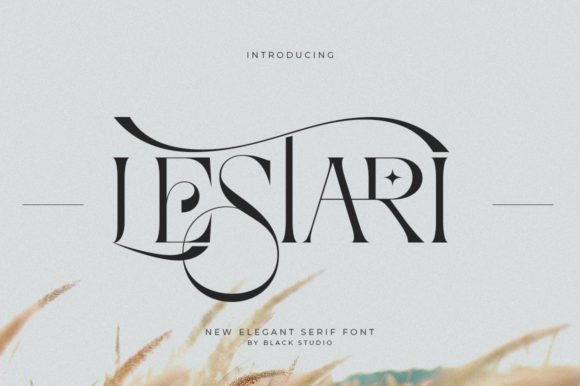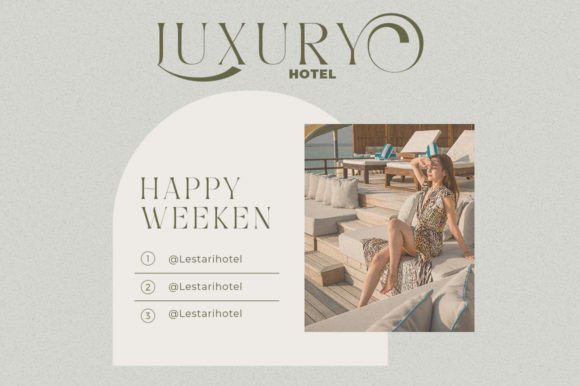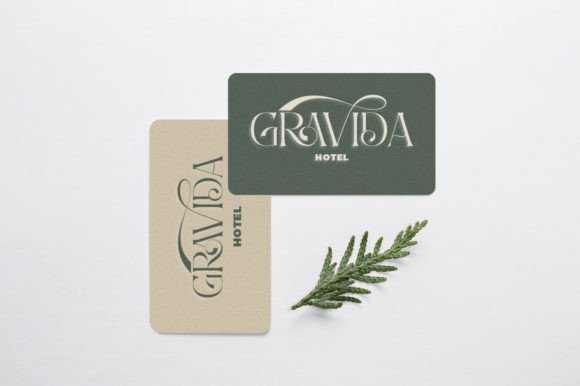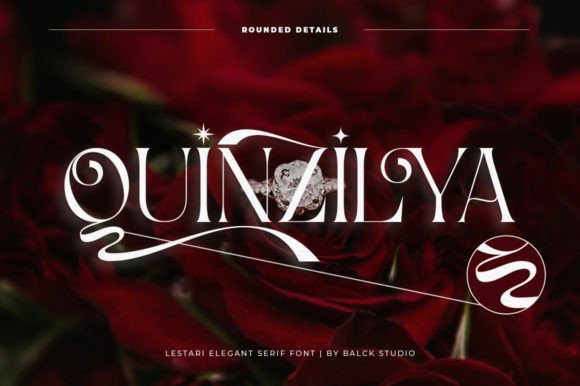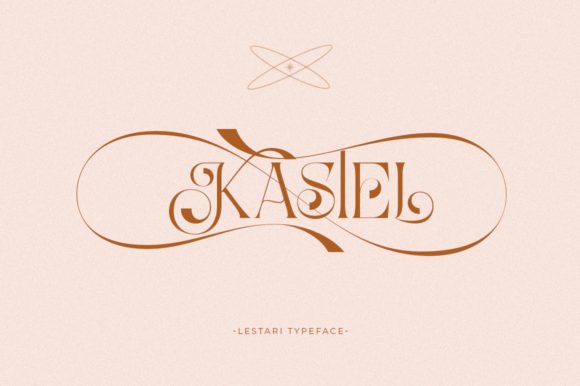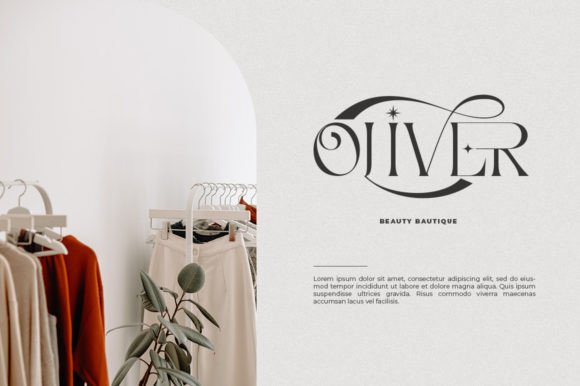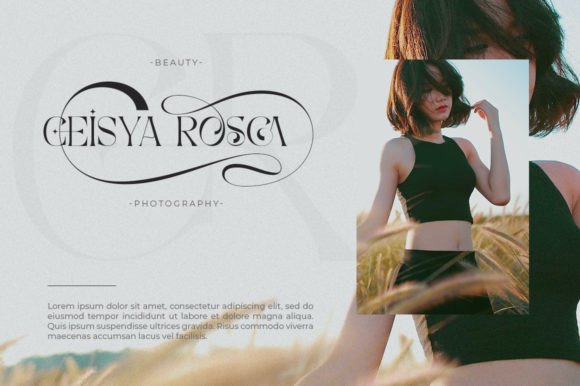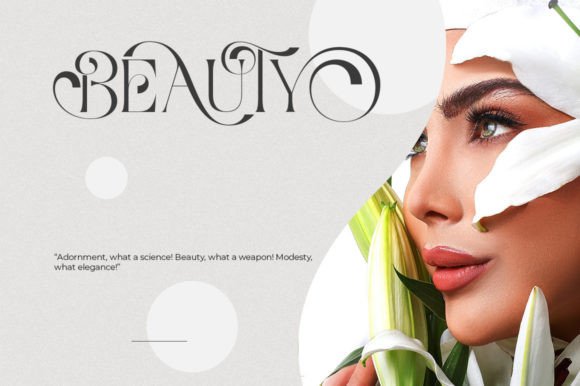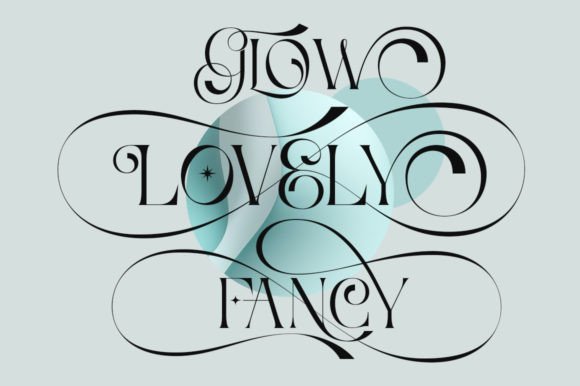
Lestari Font
Its striking contrasts and subtle details, together with its sumptuous strokes and voluptuous curves, create a beautiful and powerful statement for any typographic composition, blending glamor with a contemporary aesthetic.
Lestari really helps you create unlimited variations for your creative needs in making your project titles: such as Books, fashion, magazines, logos, branding, photography, invitations, wedding invitations, quotes, blog headers, posters, advertisements, postcards, books, websites, etc.
Features:
• Full set of uppercase, lowercase
• 74 Ligatures
• 405 Alternatives
• Numbers, symbols & punctuation
• Characters with accents
• Support Multiple Languages